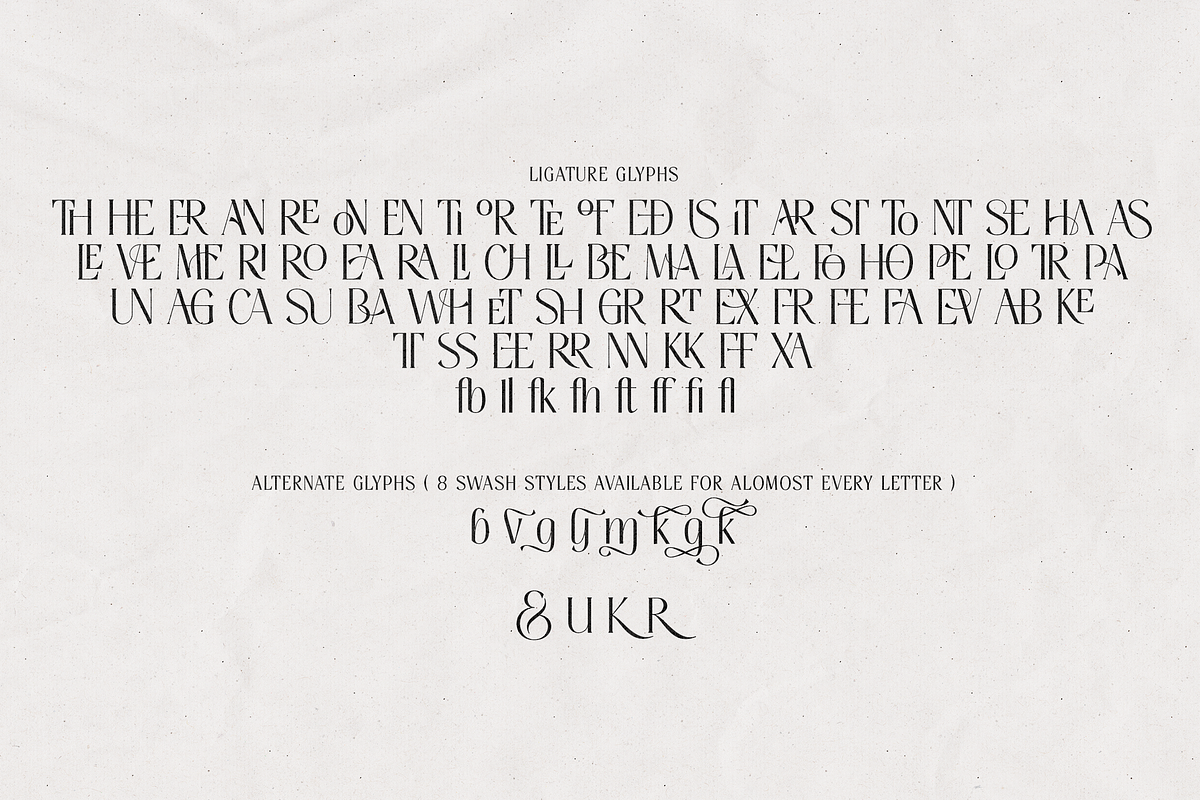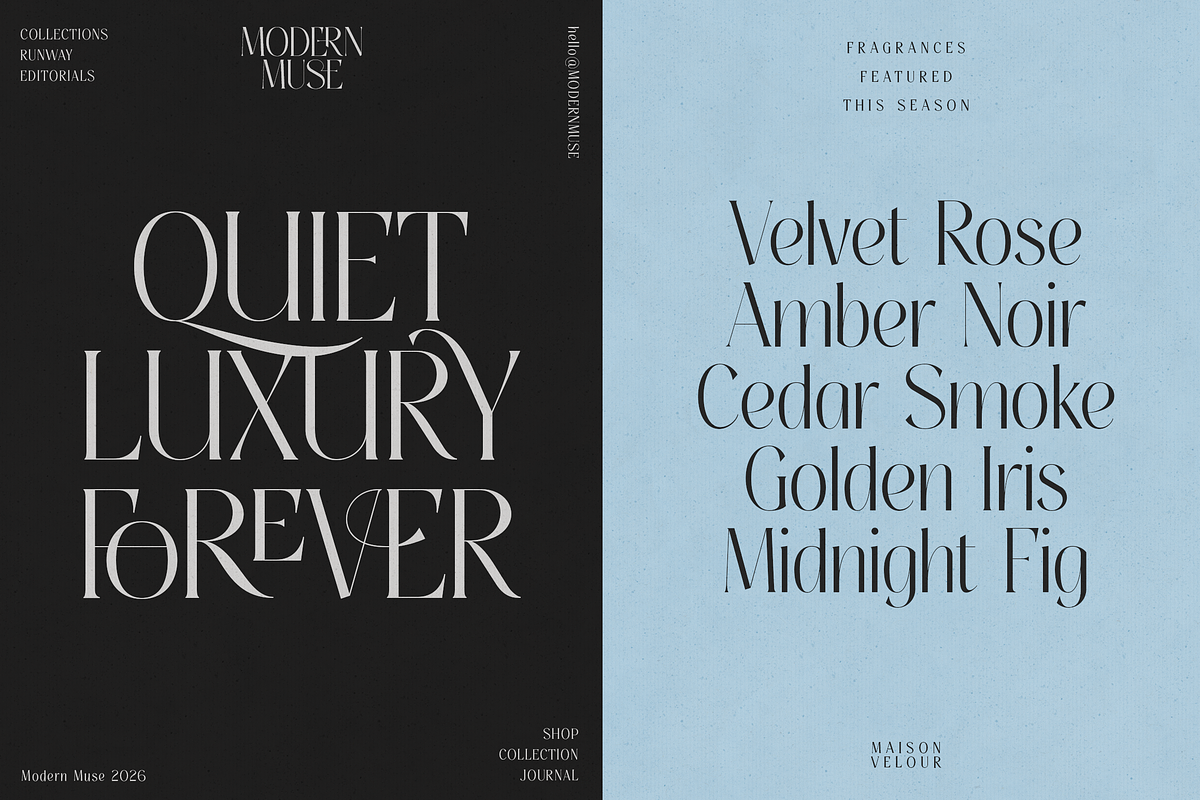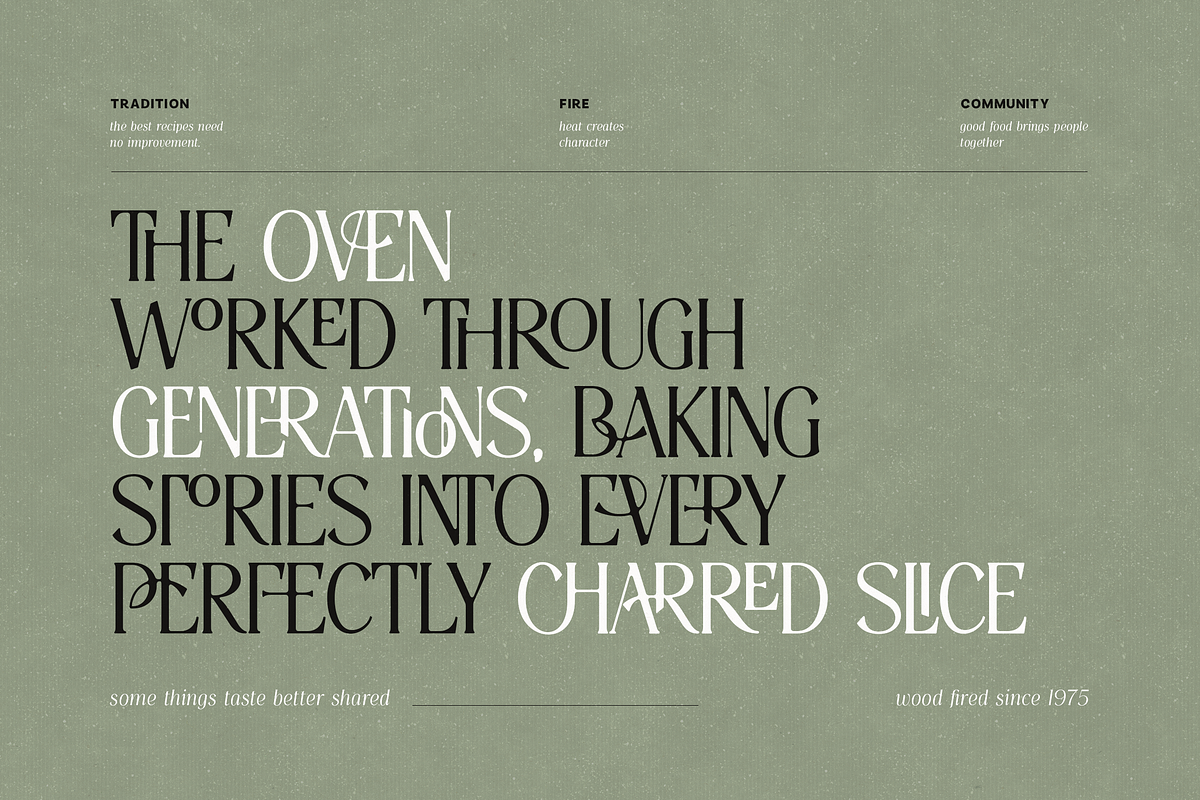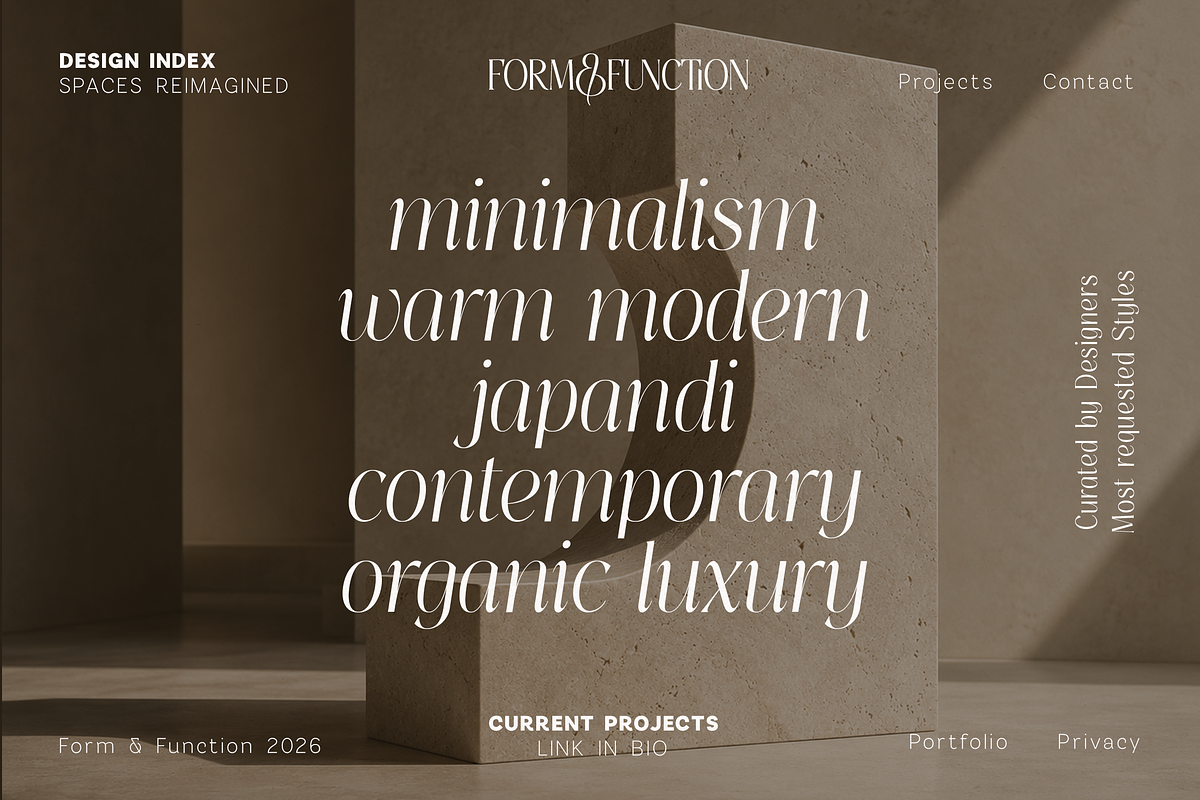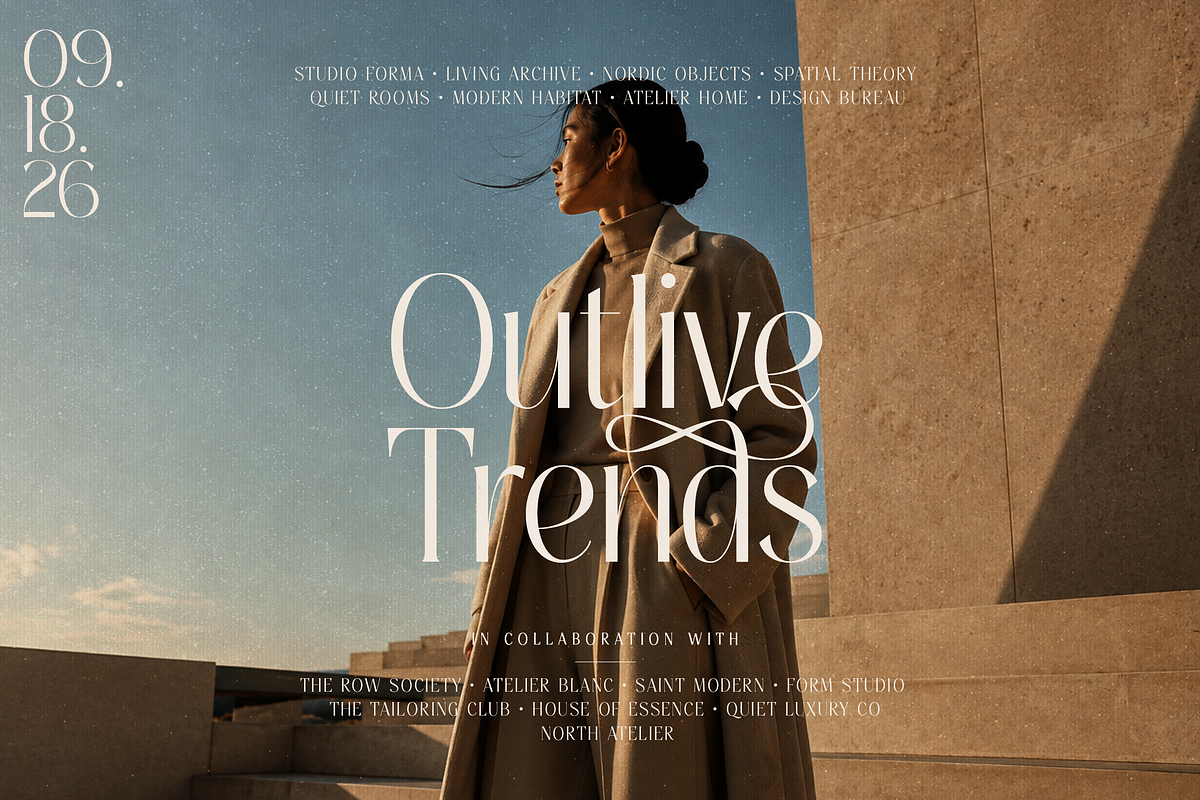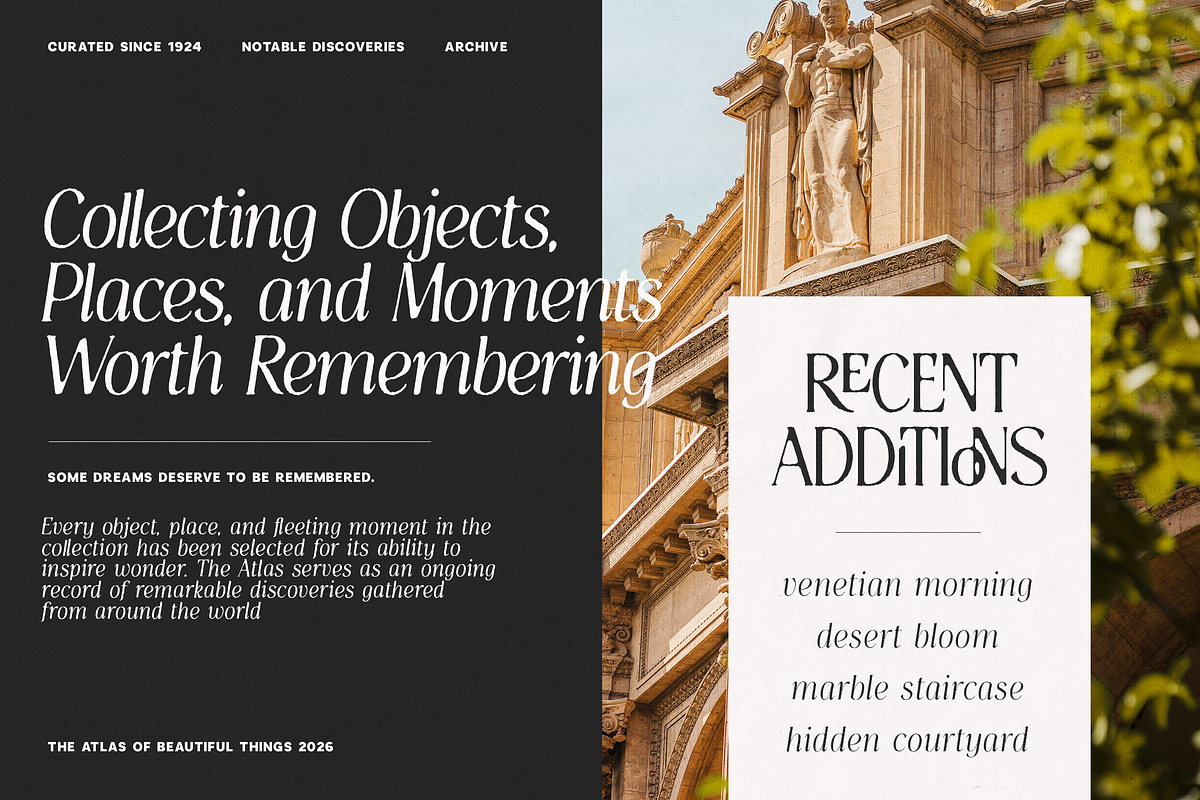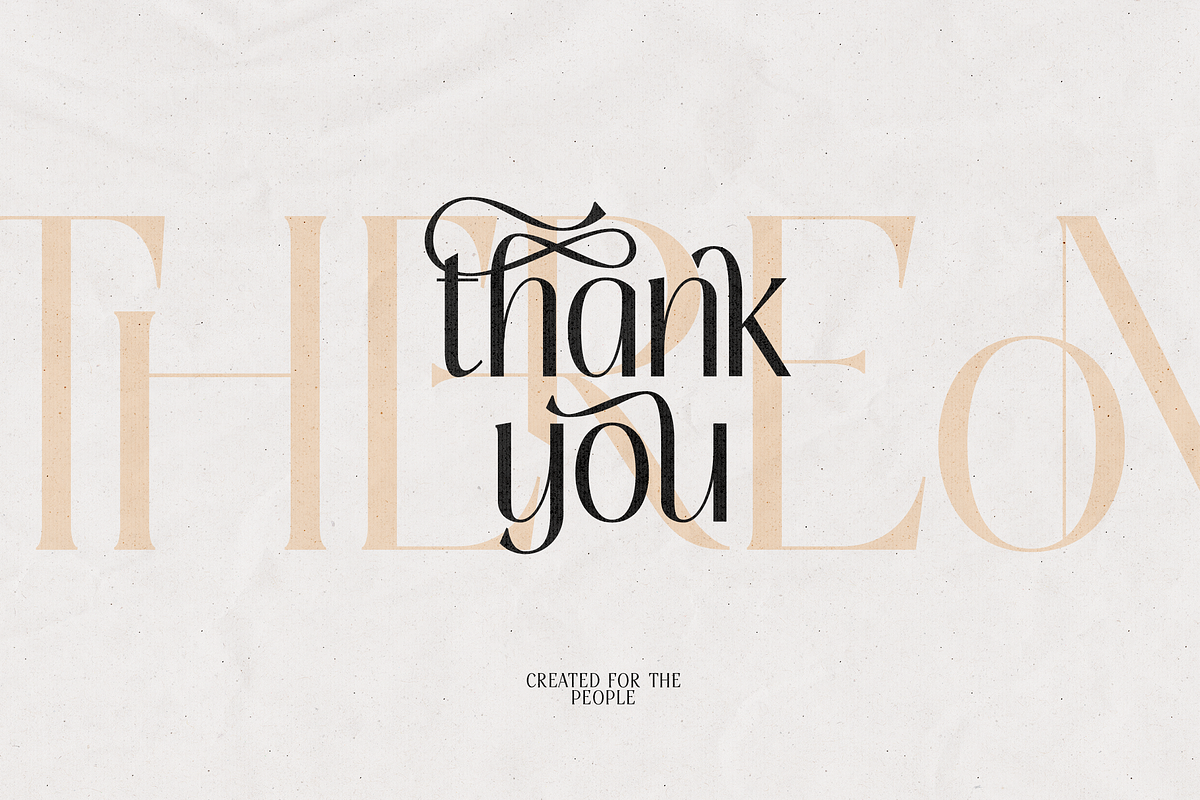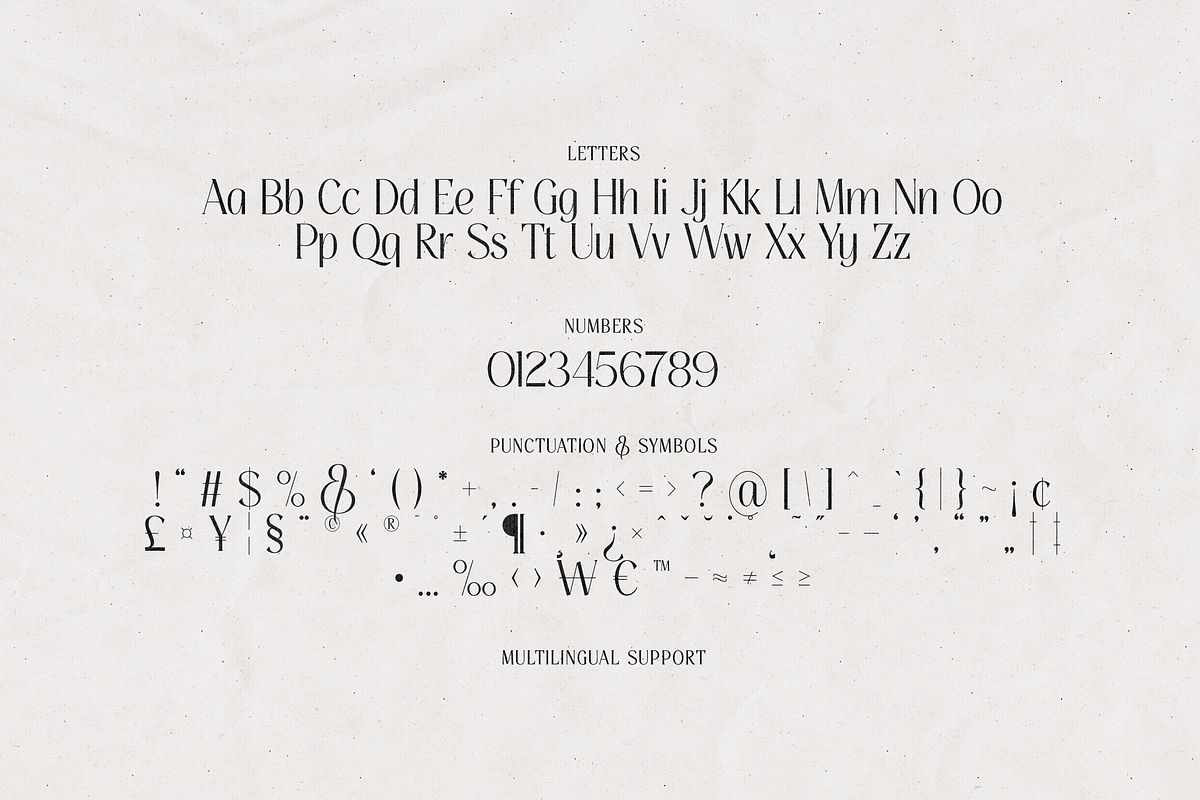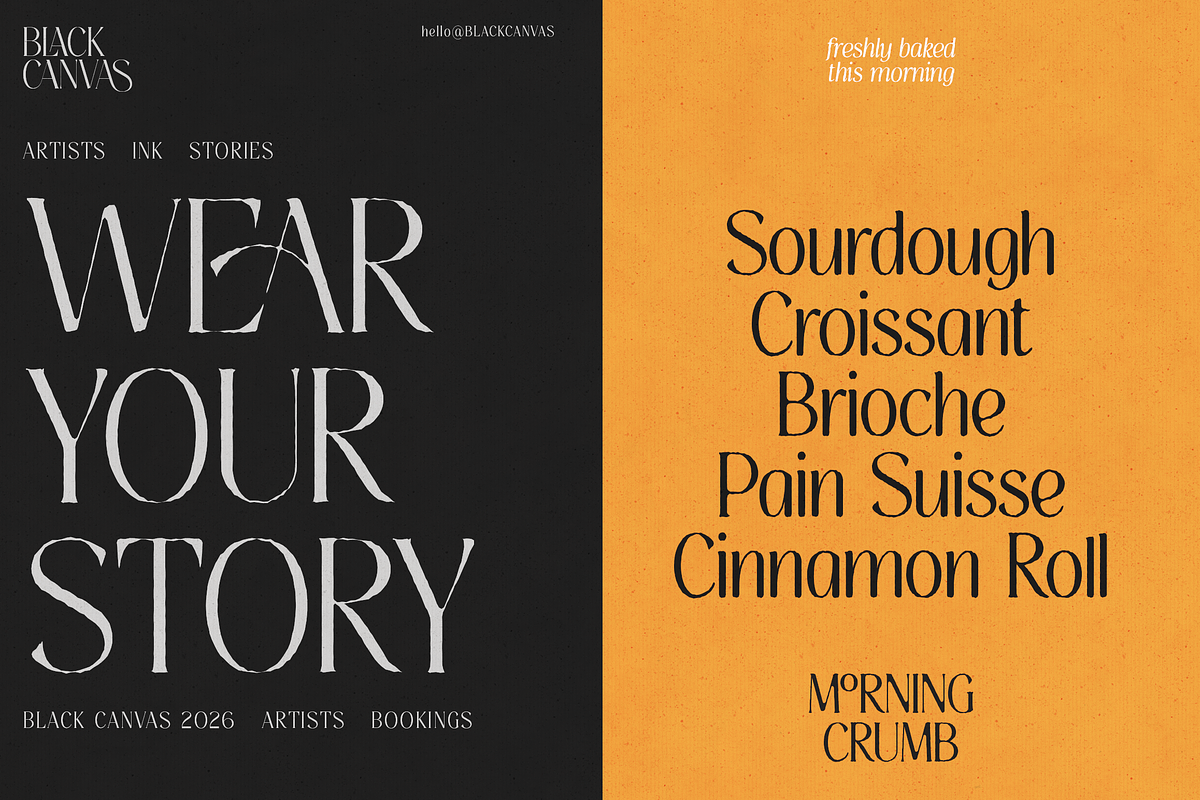
Thereon - Modern Romantic Serif Font
Thereon is a modern romantic serif designed for brands, publications, and creatives who want typography that feels elegant, expressive, and unforgettable. Combining refined high-contrast letterforms with graceful curves, decorative alternates, and sophisticated ligatures, Thereon brings a sense of luxury and personality to every project.
Inspired by timeless fashion editorials, boutique branding, luxury packaging, and contemporary storytelling, Thereon balances classic serif sophistication with a modern artistic spirit. Whether used for striking headlines, premium logos, magazine layouts, beauty campaigns, wedding stationery, or upscale product packaging, it delivers a distinctive voice that feels both fashionable and enduring.
The family includes multiple weights and styles, allowing designers to move seamlessly from delicate editorial elegance to bold, dramatic statements. A rich collection of ligatures and decorative alternates provides endless opportunities for customization, helping every design feel unique and carefully crafted.
Luxury branding
Fashion labels
Beauty and skincare packaging
Editorial design
Magazine covers
Wedding stationery
Boutique logos
Social media content
Product packaging
Creative portfolios
24 styles across 4 weights
Light to Black weights
Rounded and Rough versions
True italics for every style
Elegant ligatures
Decorative alternate glyphs
Swash characters
Uppercase & lowercase
Numerals & punctuation
Thereon is more than a typeface - it is a destination, a mood, and a visual statement designed to elevate modern brands with elegance, romance, and refined character.